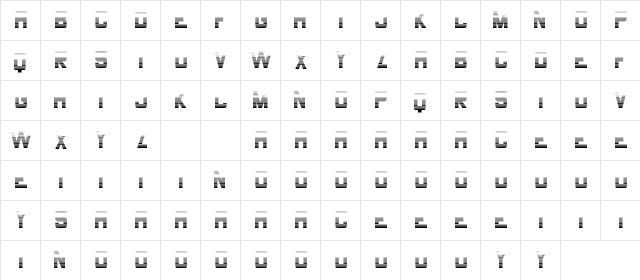
THECHAMP DEMO Gradient Regular
Design Context for THECHAMP DEMO Gradient Typeface
THECHAMP DEMO Gradient is a composed and adaptable typeface that performs quietly and consistently across a wide range of design contexts.